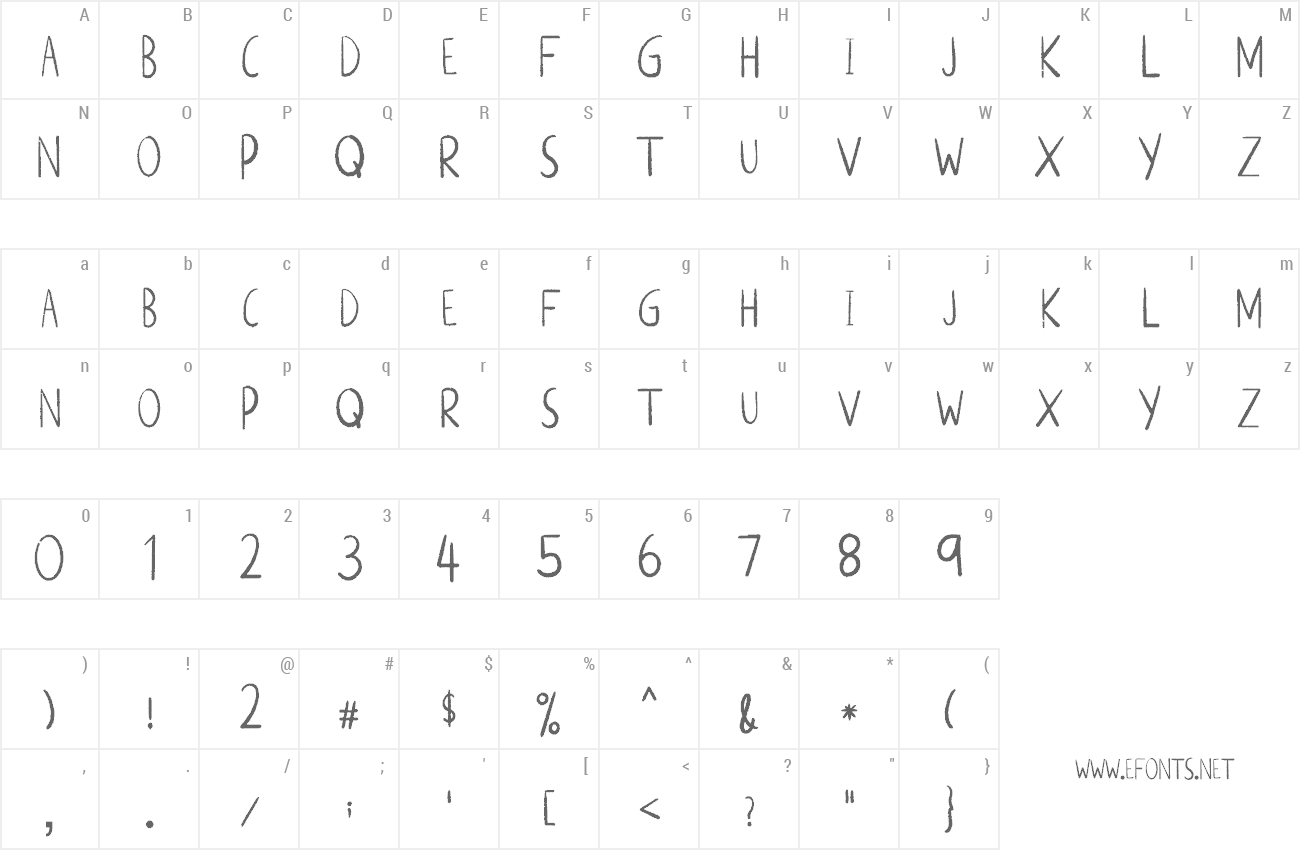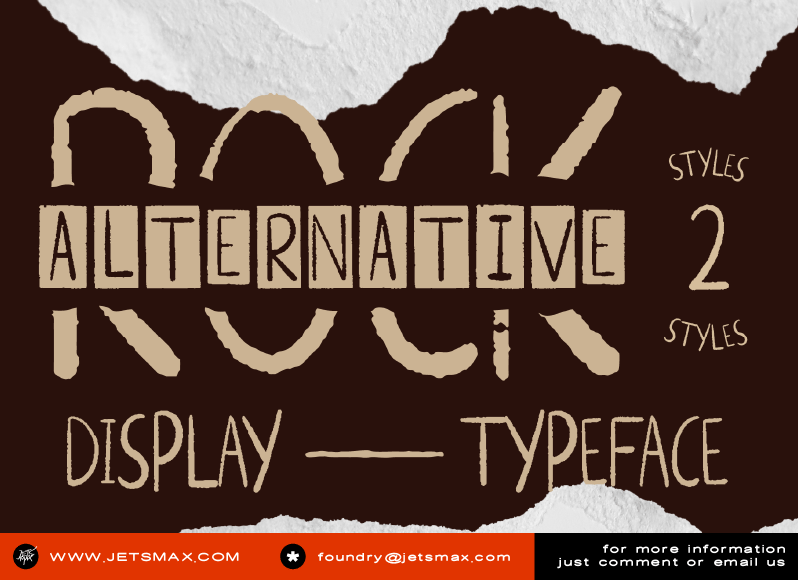
Preview and download Alternative Rock Border Font. Created by Jetsmax in Fancy Decorative styles with Free for personal use license.
Alternative Rock is a trendy display font inspired by summer music festival vibes. This hand drawn font will give a boost of adrenaline and elevate any of your creative projects! Alternative Rock Font best uses for poster, cover, logo, branding, social media post, advertising and many more! Note: By installing or using this font, you are agree to the Product Usage Agreement: � This is demo version (TTF file) and ONLY for PERSONAL USE. NO COMMERCIAL USE ALLOWED! � Here is the link to purchase commercial license : https://jetsmax.com/alternative-rock/ � For Corporate use you have to purchase Corporate license � If you need a custom license please contact us at : foundry@jetsmax.com � Any donation are very appreciated. Paypal account for donation : https://paypal.me/KhairilAnwar Happy Creation! ----------------------------------------------- FOR SOME FREEBIES CHECK OUT >>> www.jetsmax.com |